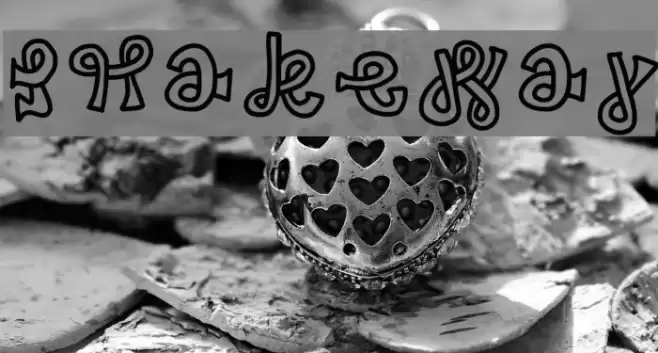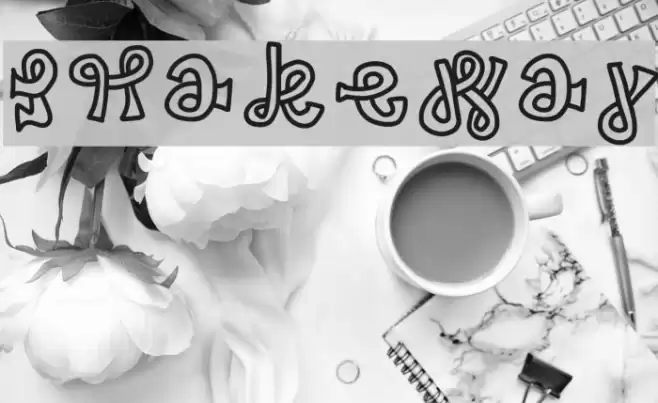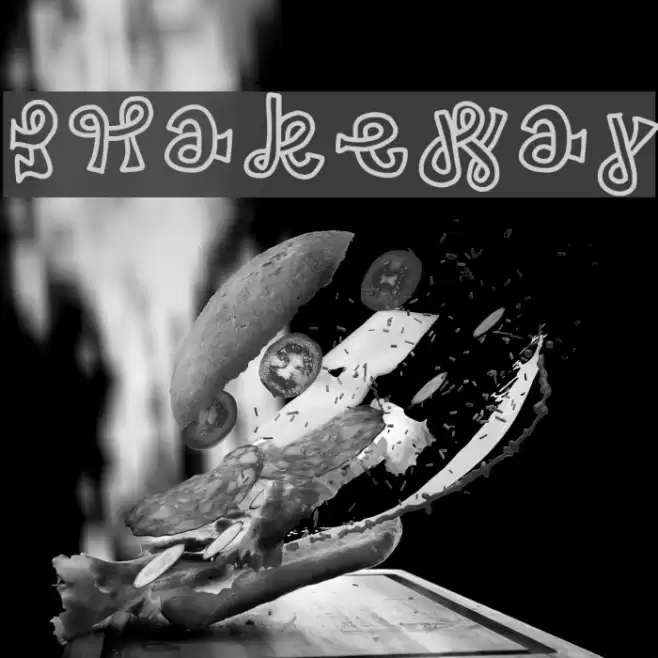
snakeway Font
snakeway Description
This font features a unique and playful design with a decorative flair. Each character is crafted with a bold outline and intricate curves, creating a whimsical and artistic appearance. The letters are highly stylized, with exaggerated loops and swirls that give them a dynamic and lively feel. The numbers and special characters follow the same design principles, maintaining consistency across the font. This font stands out with its creative and unconventional style, making it ideal for projects that require a touch of fun and creativity.
A playful and decorative font with bold outlines and intricate curves from Uncategorized fonts.
- Proposed Projects: Ideal for children's books, creative posters, playful branding, and artistic invitations.